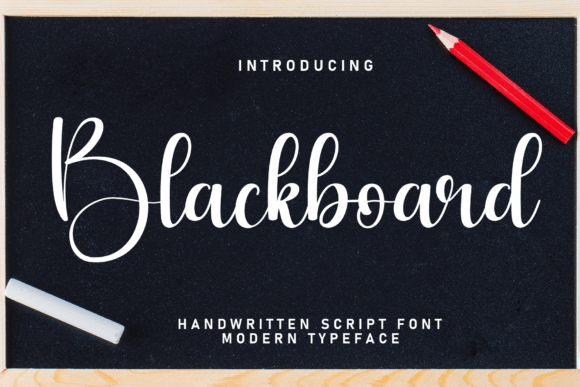
The Elegance of Blackboard Font: A Designer’s Delight
I’ll never forget the time I was working on a wedding invitation project, and my client asked for a font that would make their special day feel like a fairytale. I scoured the internet, tried out countless fonts, but nothing seemed quite right. That was until I stumbled upon Blackboard Font. It was love at first sight! 💕
Blackboard is a stylish and incredibly elegant script font that has become a staple in my design toolkit. It looks stunning on wedding invitations, thank you cards, quotes, greeting cards, logos, business cards, and every other design that needs a handwritten touch.
- ✨ Elegant and sophisticated design that’s perfect for high-end projects
- 💫 Beautifully crafted to give a personal, handwritten feel
- 🎨 Versatile and can be used for a wide range of design projects
While Blackboard Font is an amazing font, there are a few things to keep in mind:
- ⚠️ It may not be the best choice for body text, as it’s a script font and can be a bit ornate for long blocks of text
- 🤔 Some characters may not work well in all contexts, so it’s essential to test the font thoroughly
One of the best things about Blackboard Font is its OpenType features and glyphs. These allow you to customize your text and add unique touches to your design. Some common features include:
- Stylistic alternates: These allow you to swap out certain characters for alternate versions
- Ligatures: These combine certain character pairs into a single glyph
- Swashes: These add decorative flourishes to your text
The Story Behind Blackboard Font
Blackboard Font was designed by a team of typographers who wanted to create a font that would evoke the feeling of a chalkboard. They drew inspiration from classic blackboards, with their smooth, elegant lines and rustic charm. The result is a font that’s both elegant and approachable, perfect for designs that need a touch of personality.
Q: What is Blackboard Font?
A: Blackboard Font is a stylish and elegant script font that’s perfect for designs that need a handwritten touch.
Q: Is Blackboard Font suitable for body text?
A: While Blackboard Font is a beautiful font, it’s not ideal for body text. It’s best used for headings, titles, and other design elements that need a touch of personality.